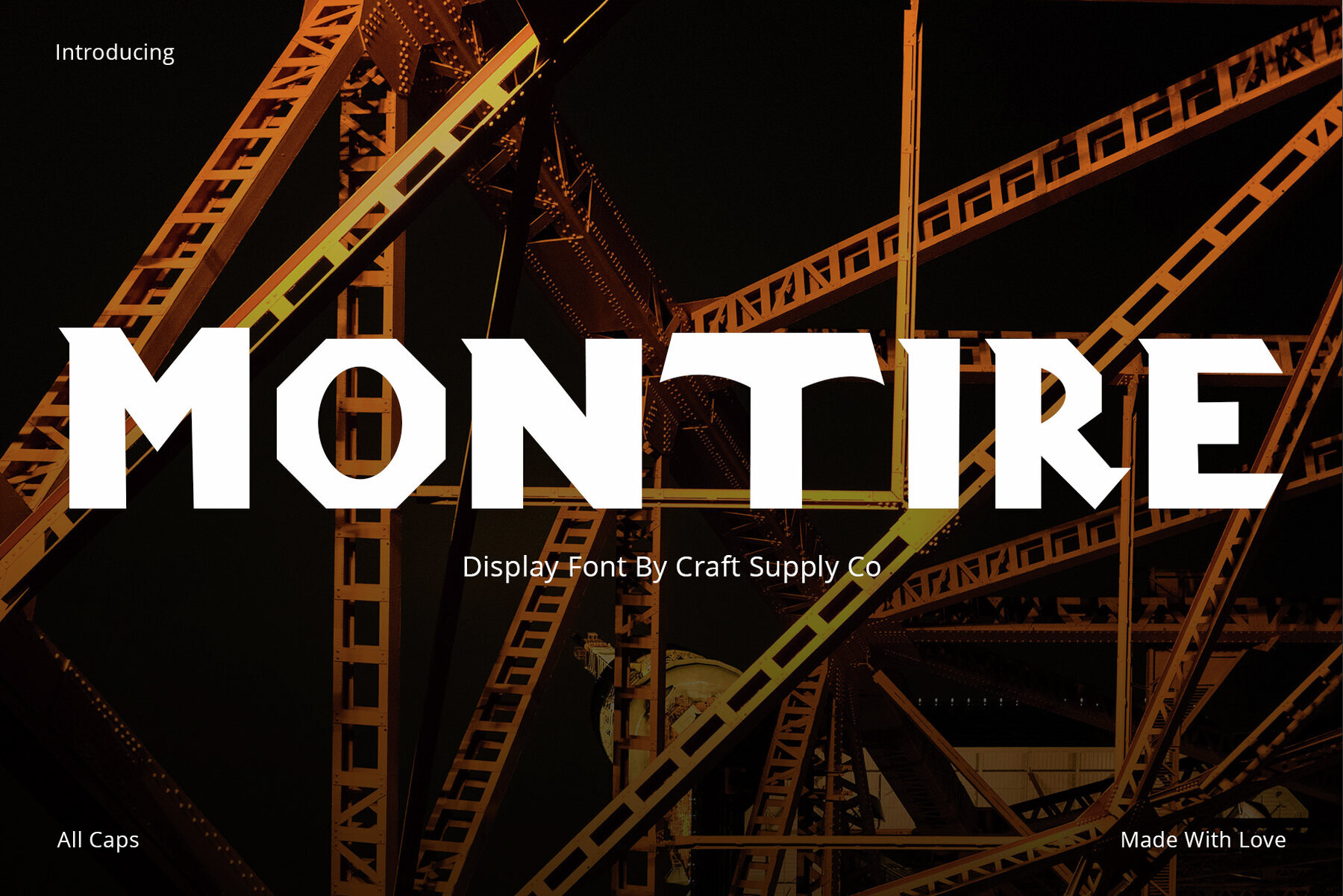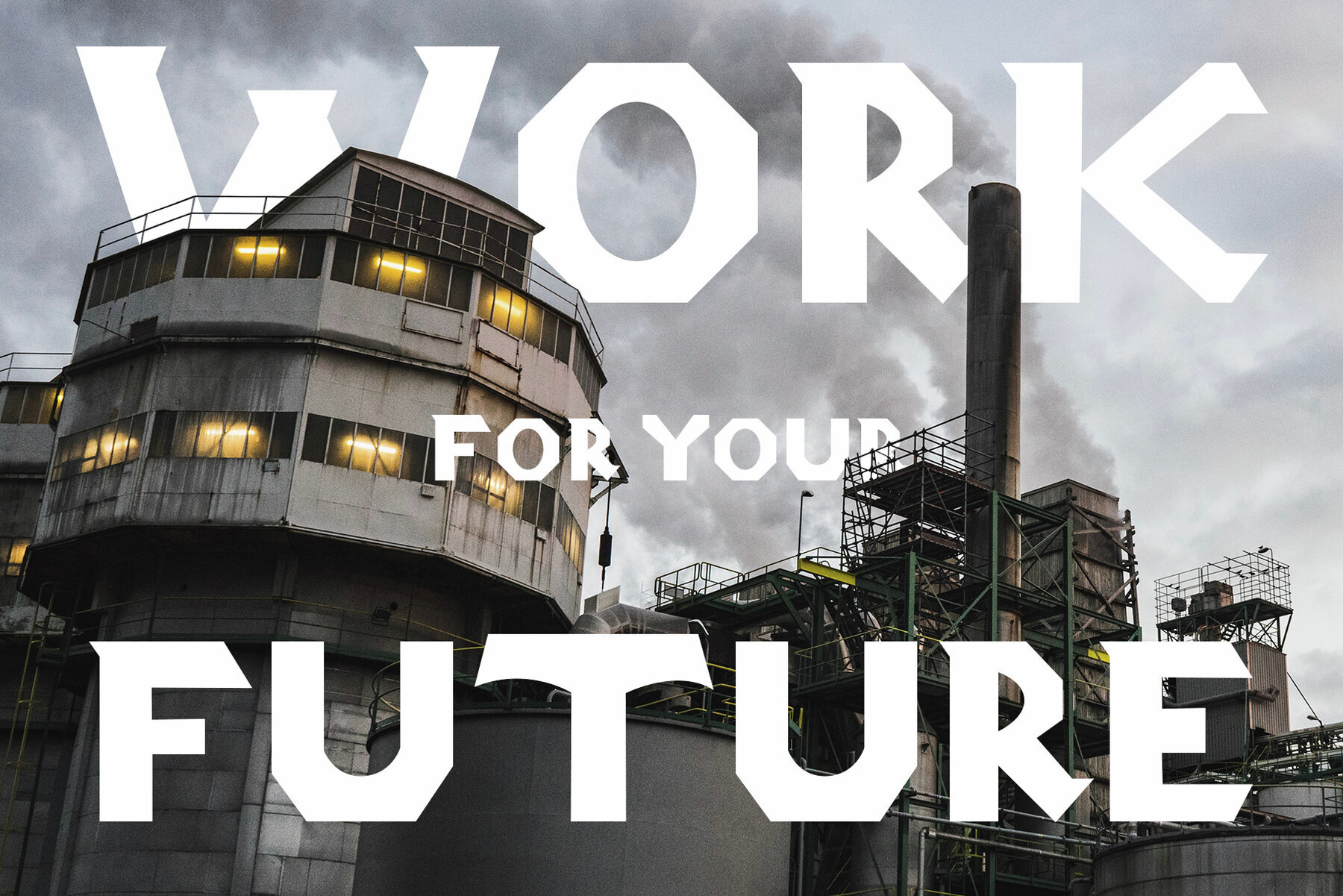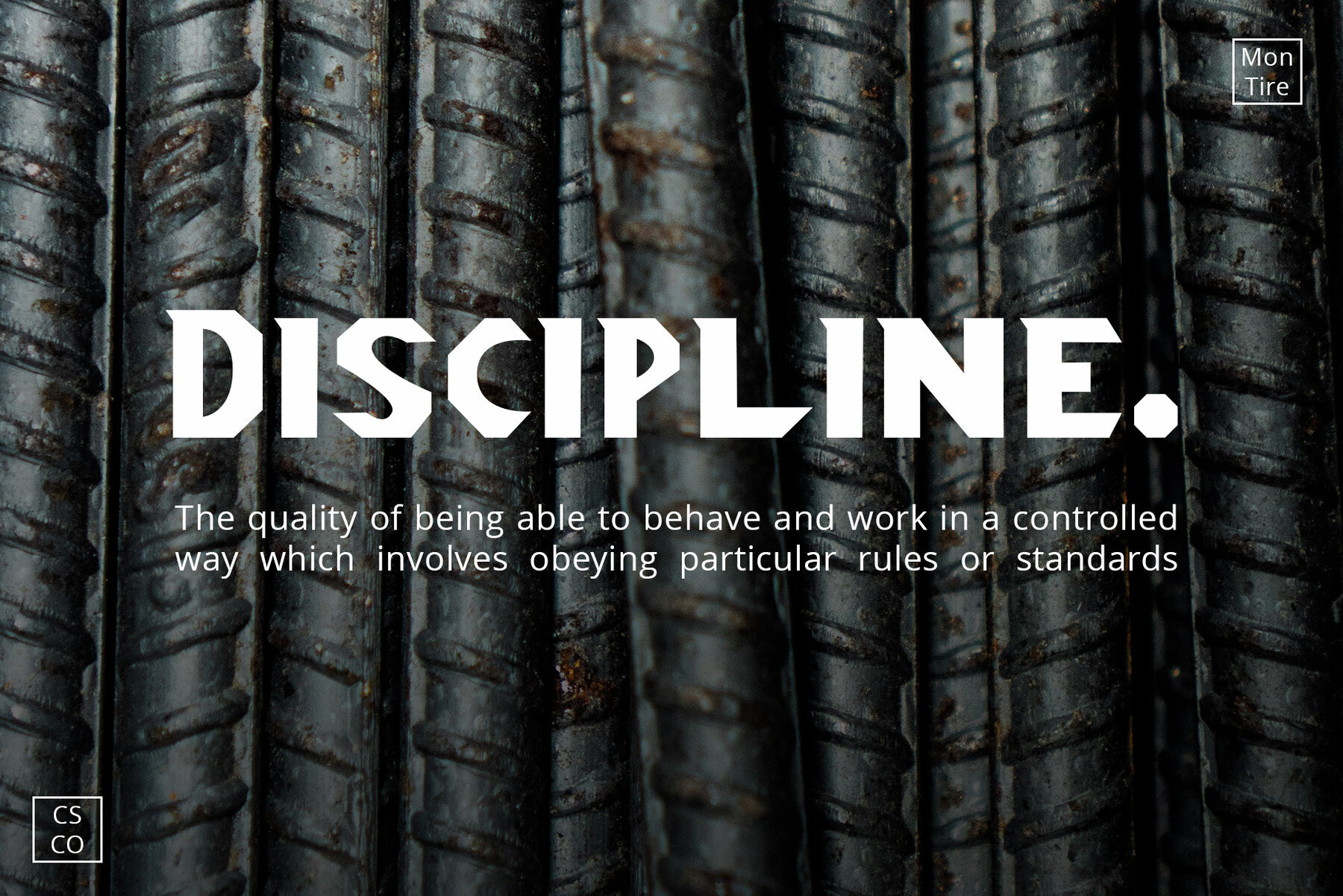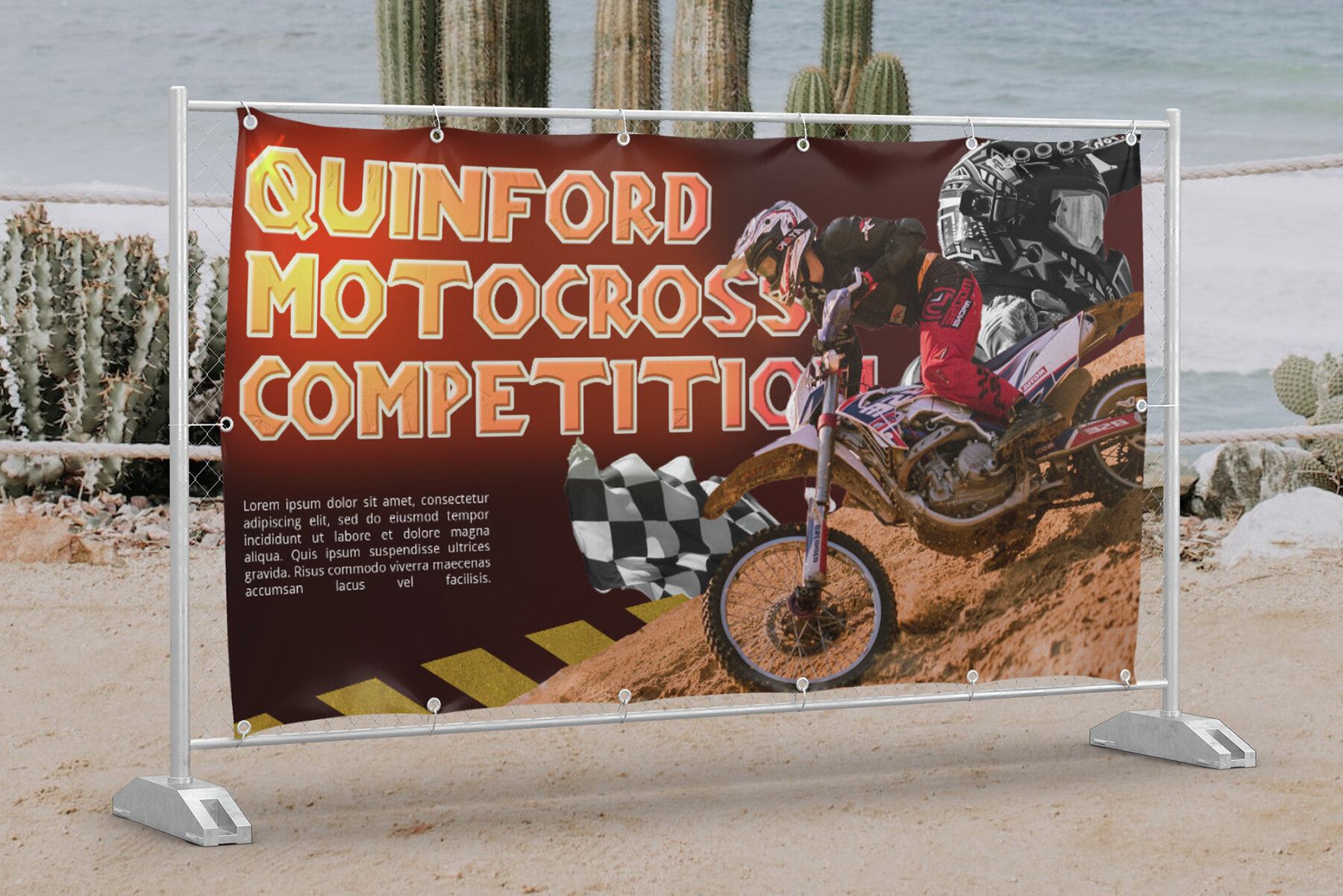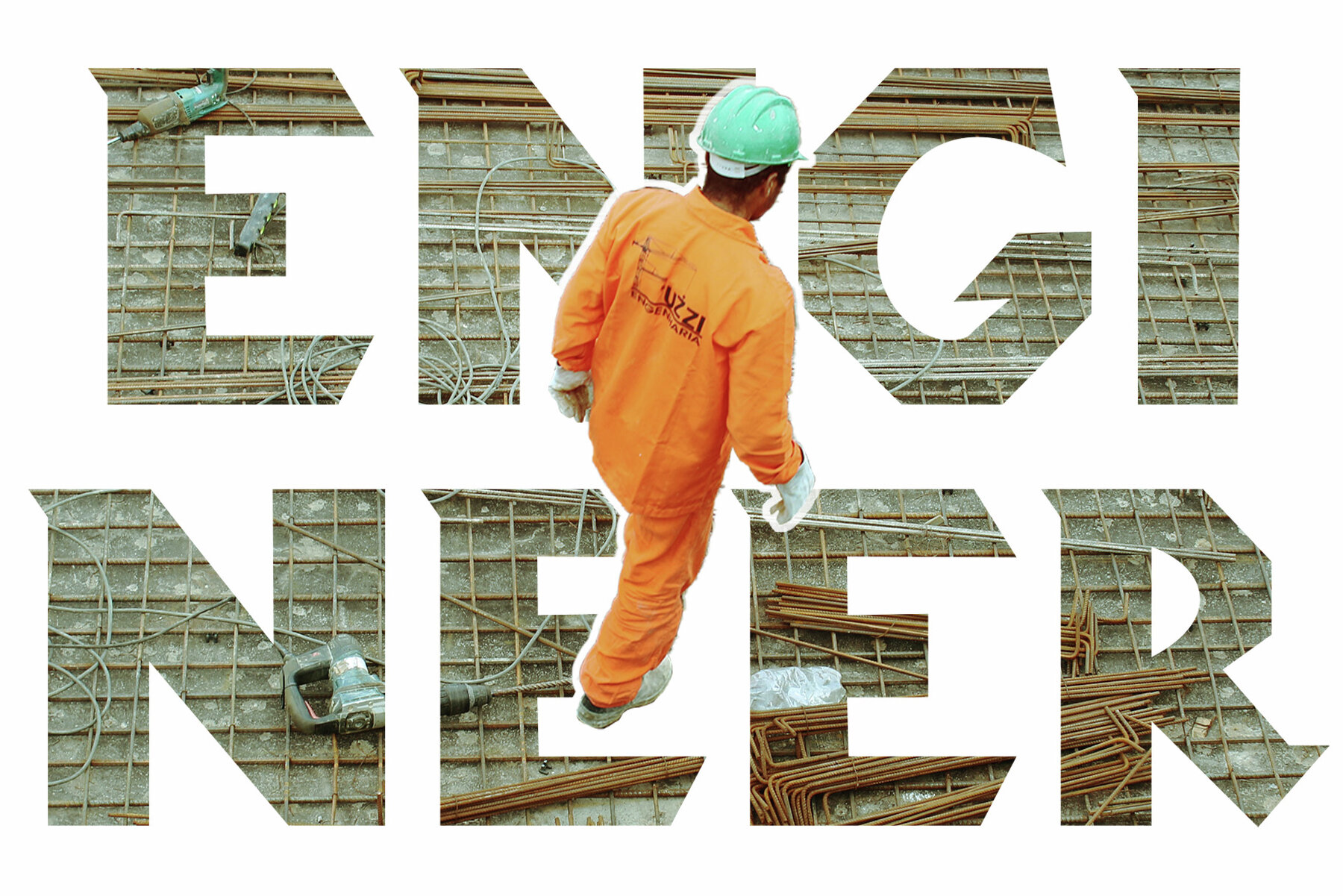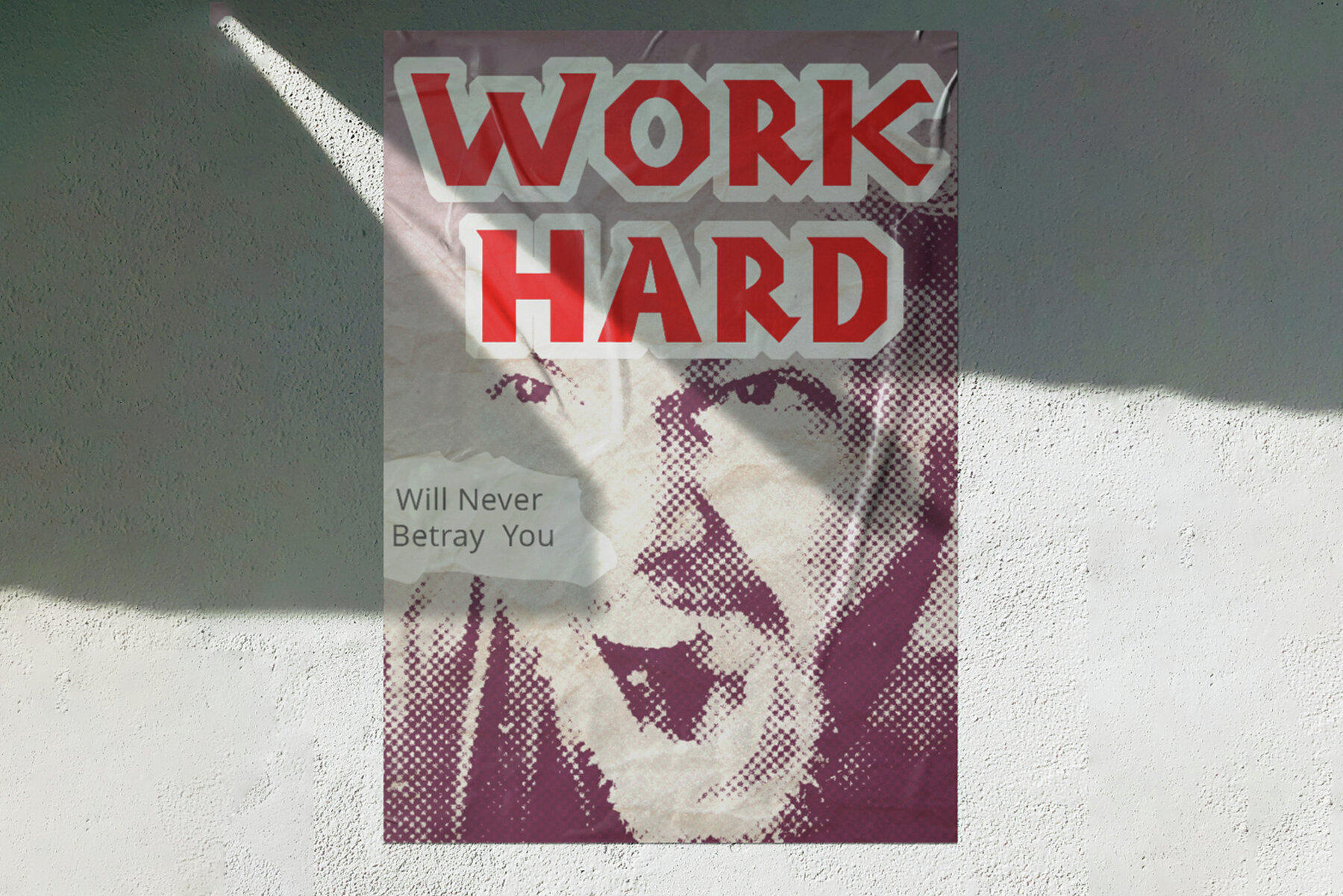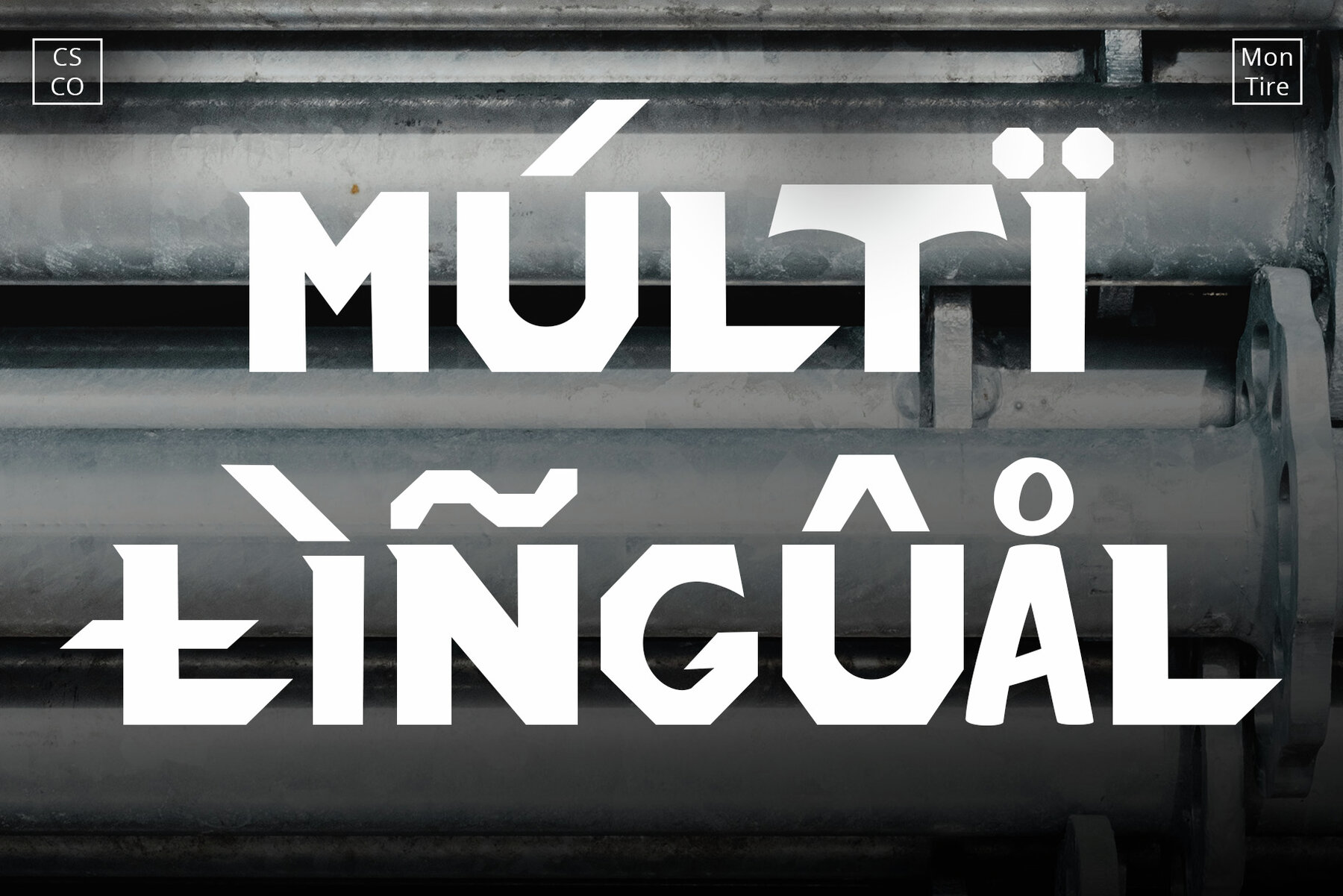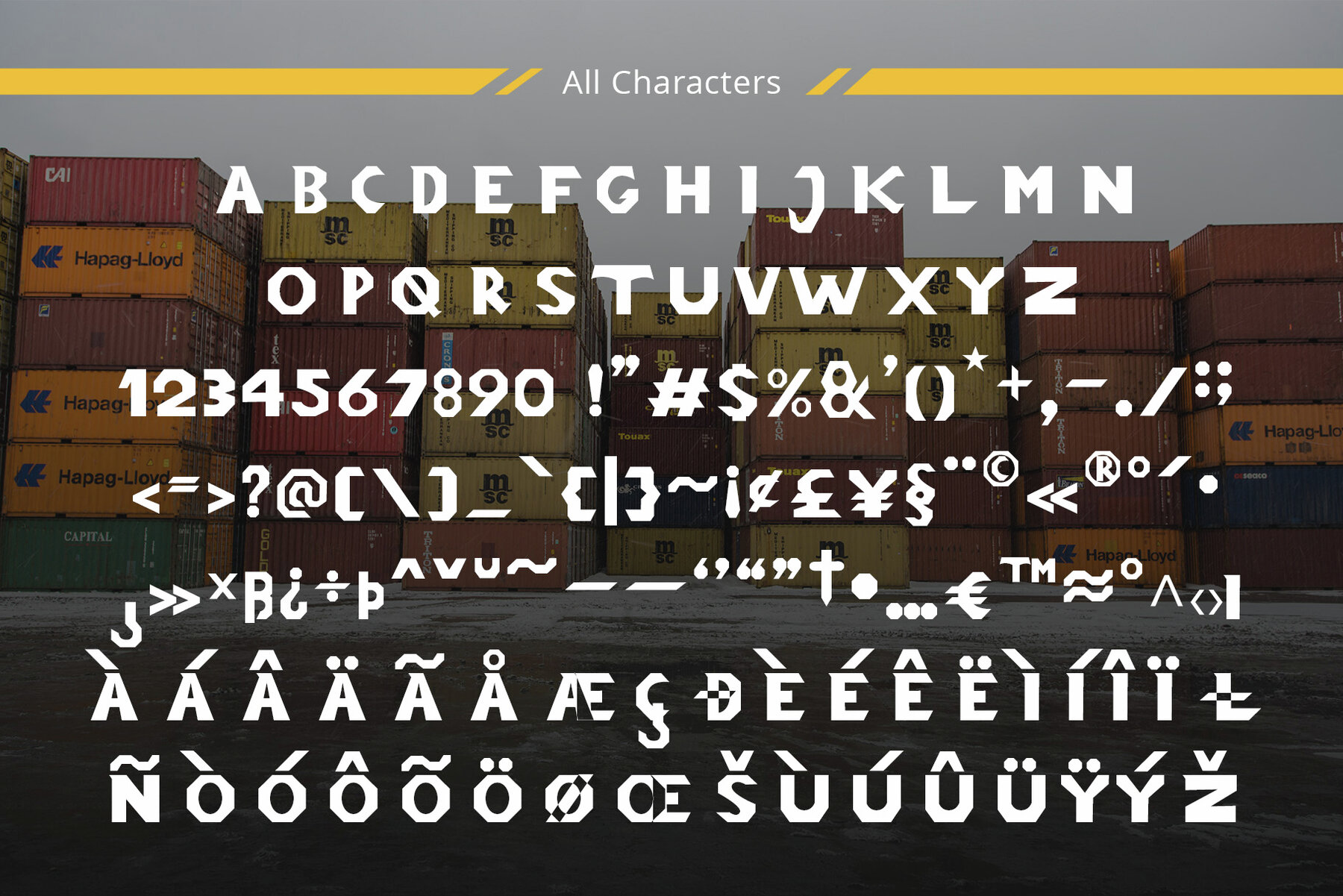
Montire Font
Montire, developed by Craft Supply Co., is a font that encapsulates a sense of robust masculinity. Its bold and powerful appearance commands attention and respect within any design context. The design of Montire brings a distinctive masculine edge, making it an excellent choice for projects that require a strong and direct font style. This font incorporates an industrial edge, contributing a rugged and mechanical quality. It's perfect for designs aiming for an edgy and forceful statement. With its inherent strength in typography, Montire elevates any message to be more bold and impactful. Its versatile nature makes it suitable for a broad spectrum of design projects.Montire: Bold Serif with Industrial Strength
Robust Masculinity
Industrial Edge
Powerful Typography